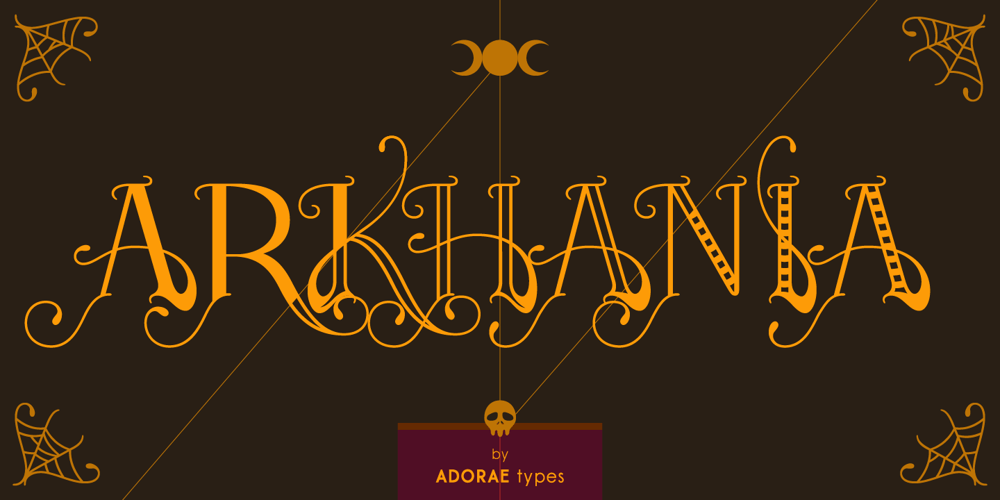
Arkhania
Arkhania font
Arkhania Font Family was designed by Emilia Adorno and published by Adorae Types. Arkhania contains 4 styles and family package options. Light the fire and get your spells ready for Halloween with this witchy font, Arkhania. This display family offers three different styles from which you can pick the one that best describes the atmosphere and mood of your composition: Striped, fun and wicked, Regular, a more strong and classical look, and Hollow, old styled and classy. All three typefaces inspired by the Triple Moon Goddess and its phases: Maiden, Mother, & Crone. Arkhania family features: 423 glyphs 3 styles 84 icons, drawings, swashes and flags Standard ligatures Alternate characters Contextual alternates Swashes more… In addition, there is Arkhania Sigils, a style filled with swashes, icons, drawings and symbols. Play with them, combine a few, choose from different beginnings and endings and create your own swashes, underlines and frames. You can also find flags and boxes along with common connectors.Tips for a clean and modern look: Combine this typeface with a sans serif, light or thin font, like Aeonian (Aeonian Light was used for these images), and let Arkhania cast a spell on the viewer.